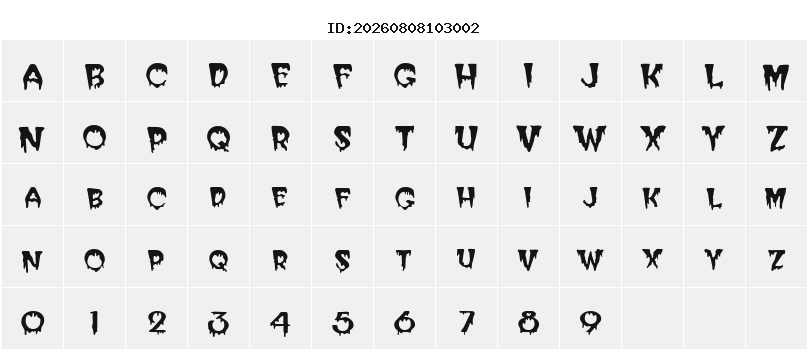
PostCrypt Preview
• Font Name: PostCrypt
• Font Style: A
• Font ID: Alts:PostCryptA
• Full Font Name: PostCryptA
• Version: 1.0 Mon Jul 19 18:04:48 1993
• PostScript Name: PostCryptA
• Character Count: 144
• Copyright: Based on Crypt from MacroMind, Inc. Made by Walter Kafton-Minkel. Edited by Earl Allen at Altsys.
About PostCrypt.ttf